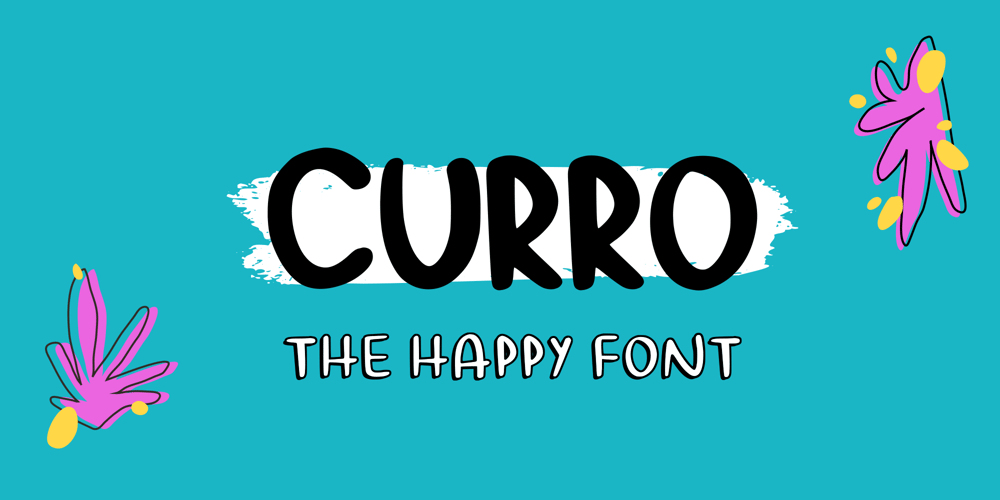
Curro Font Family was designed by Macarena Ocejo and published by Bon Bon Lab. Curro contains 4 styles and family package options. Curro is a handwritten font that radiates joy and happiness. With playful and charming curves, this typeface adds a lighthearted touch to any design. Whether it’s crafting greeting cards, designing invitations, or adding a touch of whimsy to your branding. Curro will uplift and captivate your audience. Unlock a world of positivity and vibrant creativity with this font, and let your designs come alive with the infectious spirit of happiness.